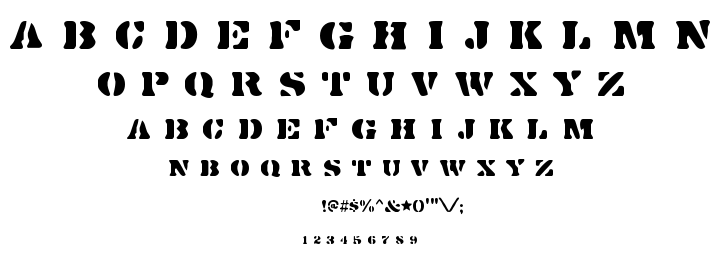
Dirty Baker’s Dozen, was released in 1998 and has since become the gold standard in raunchy stencil fonts. This version of Dirty Baker’s Dozen is pants-full of handy symbols, fractions, accents and what not. Need numeric ordinals? Probably not, but if you do, Dirty Baker’s Dozen will be there with boots on and numeric ordinals a-blazing.